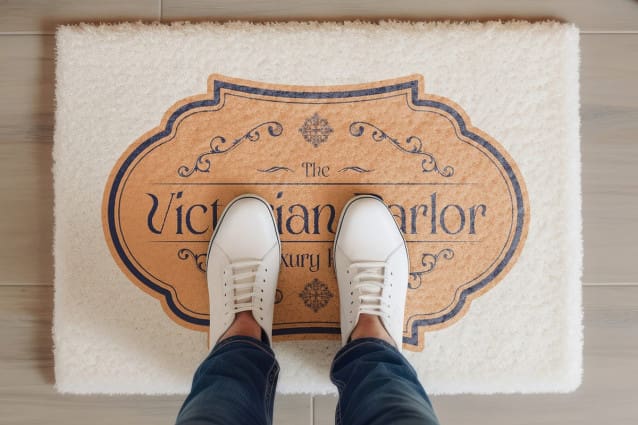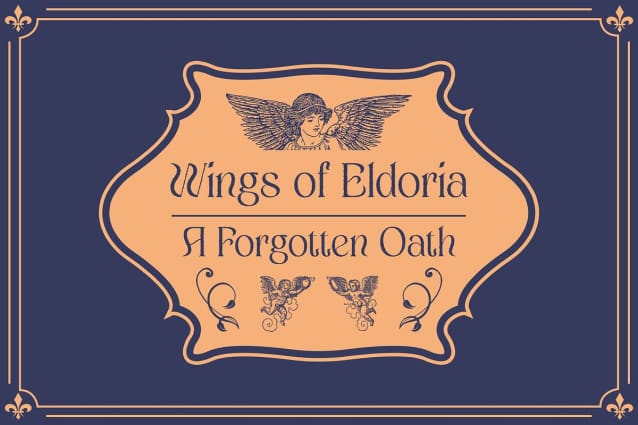
Sheilina Rough Font
Sheilina Rough Font is a modern display serif font that draws heavily from the ornate and flowing lines of the Art Nouveau movement. Its refined, nature-inspired shapes create an elegant and timeless appeal, perfect for designs requiring a sophisticated yet artistic touch. The beautifully curved letterforms, reminiscent of classic decorative motifs, evoke a sense of luxury, grace, and sophistication, bringing a delicate yet bold personality to any project. This fusion of traditional elegance and artistic flair makes Sheilina Rough stand out as a unique option for designs that value style, refinement, and visual impact.
Rough Texture for Captivating Contrast What sets Sheilina Rough apart from other serif fonts is its distinctive rough texture. This adds an unexpected layer of contrast, softening its luxurious curves with an artistic, tactile quality. The rough effect brings a handcrafted, organic feel to the font, transforming its polished elegance into something more grounded and visually intriguing. This captivating contrast makes it perfect for projects that aim to combine the polished look of classical elegance with a contemporary, artisanal twist, ensuring your design doesn’t just blend in but truly stands out in its uniqueness.